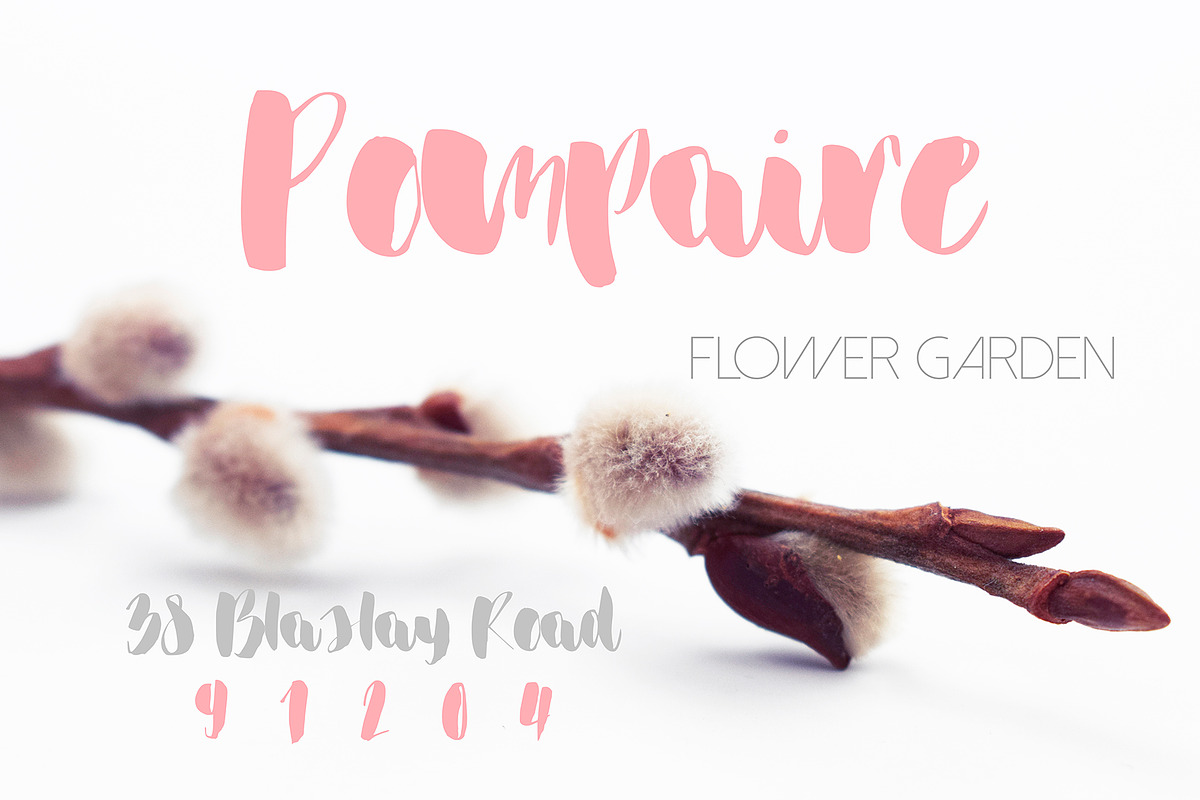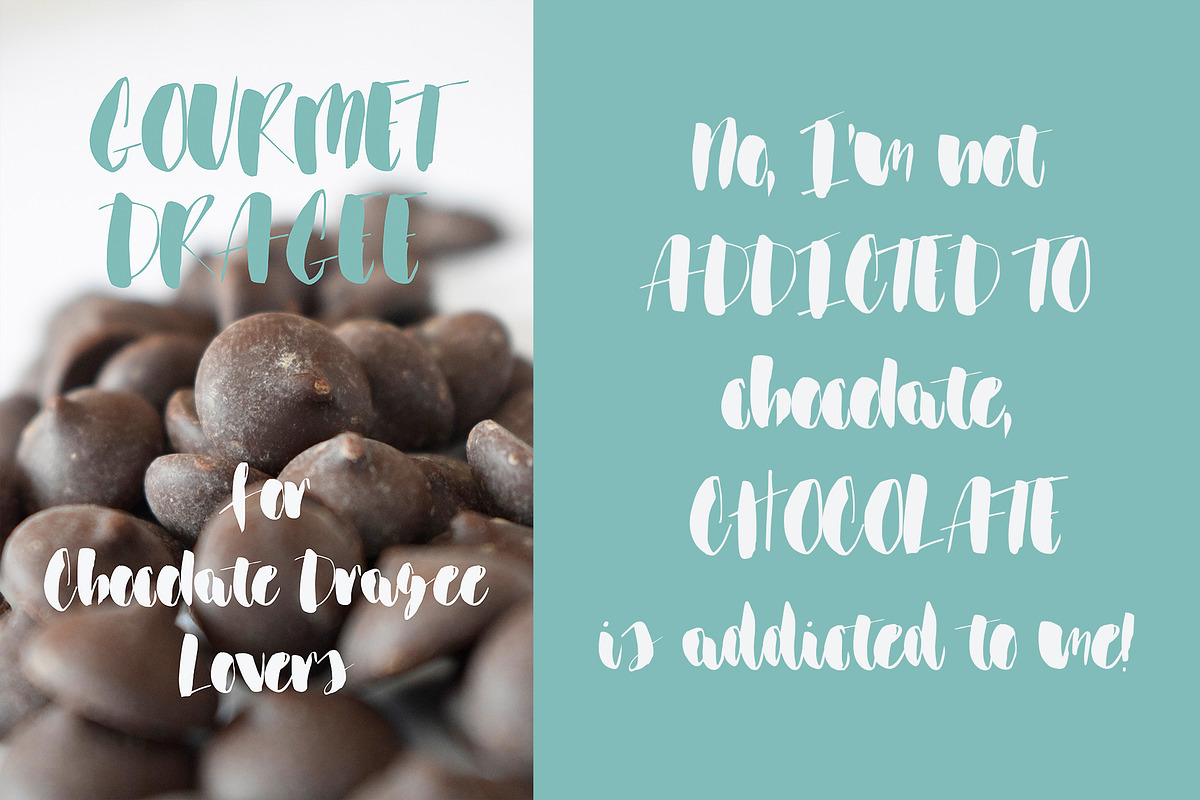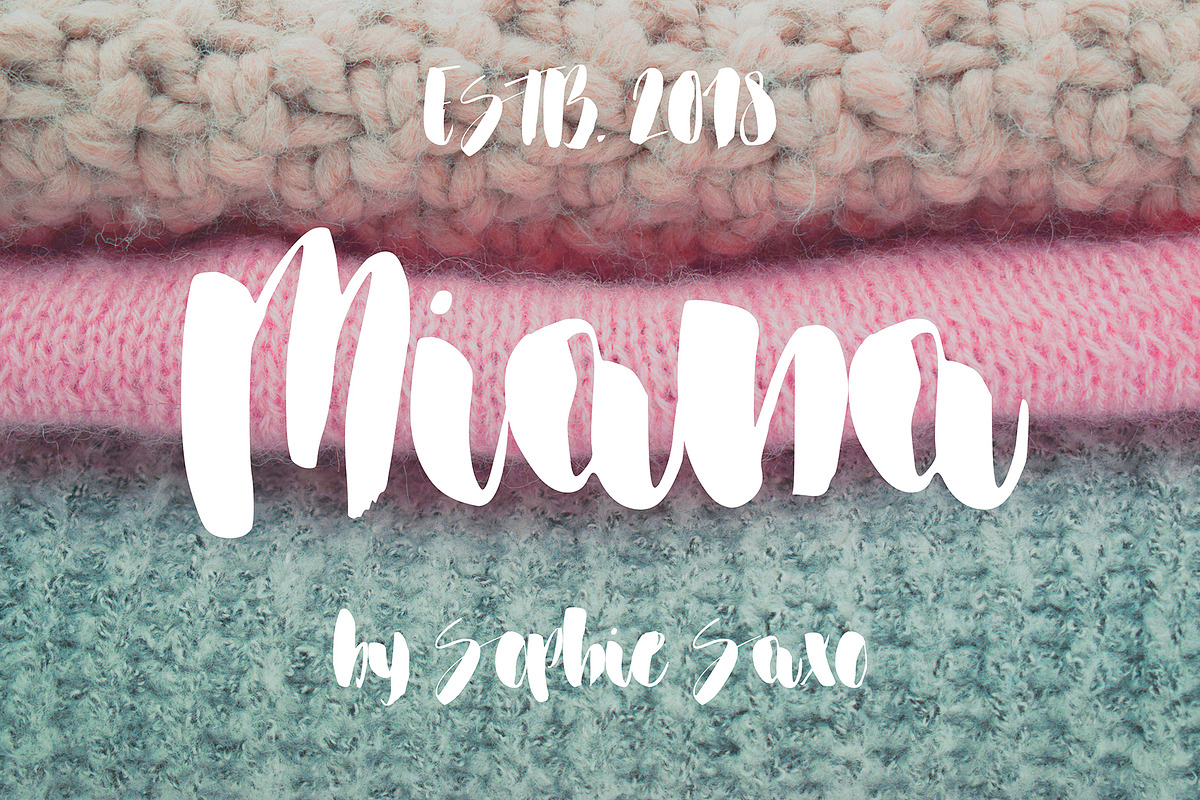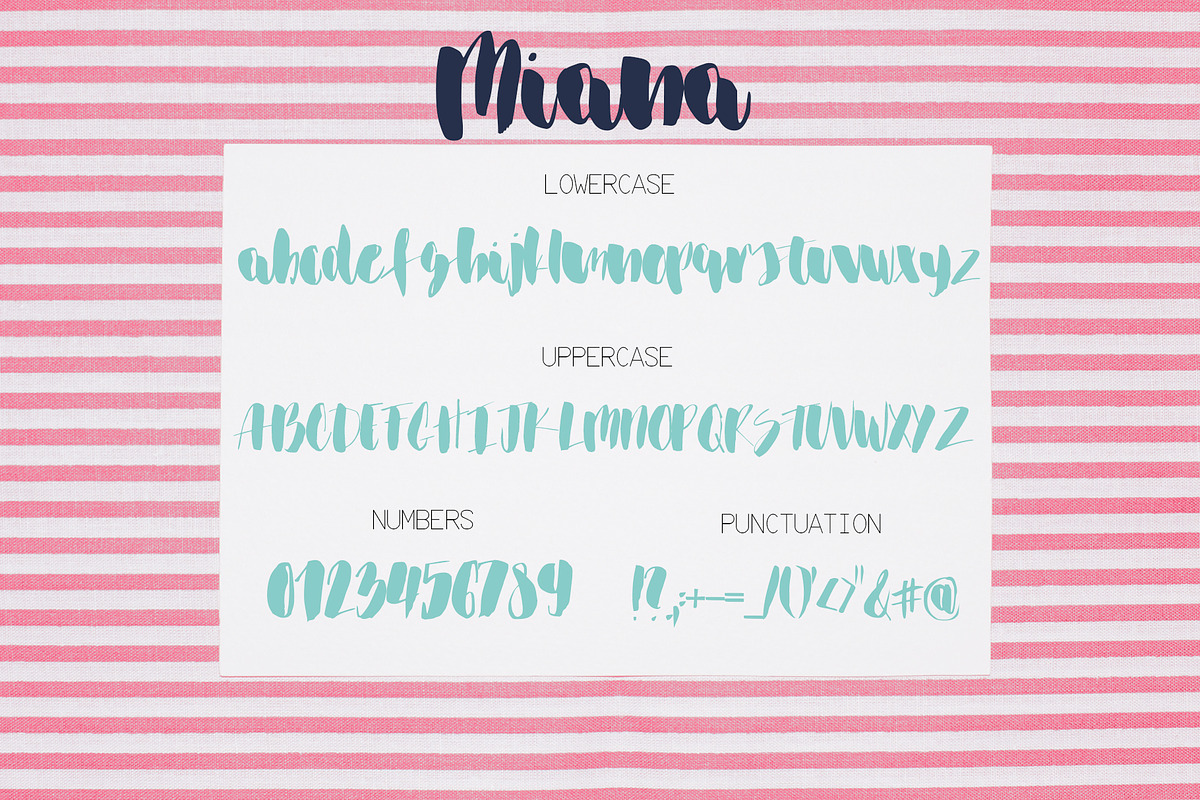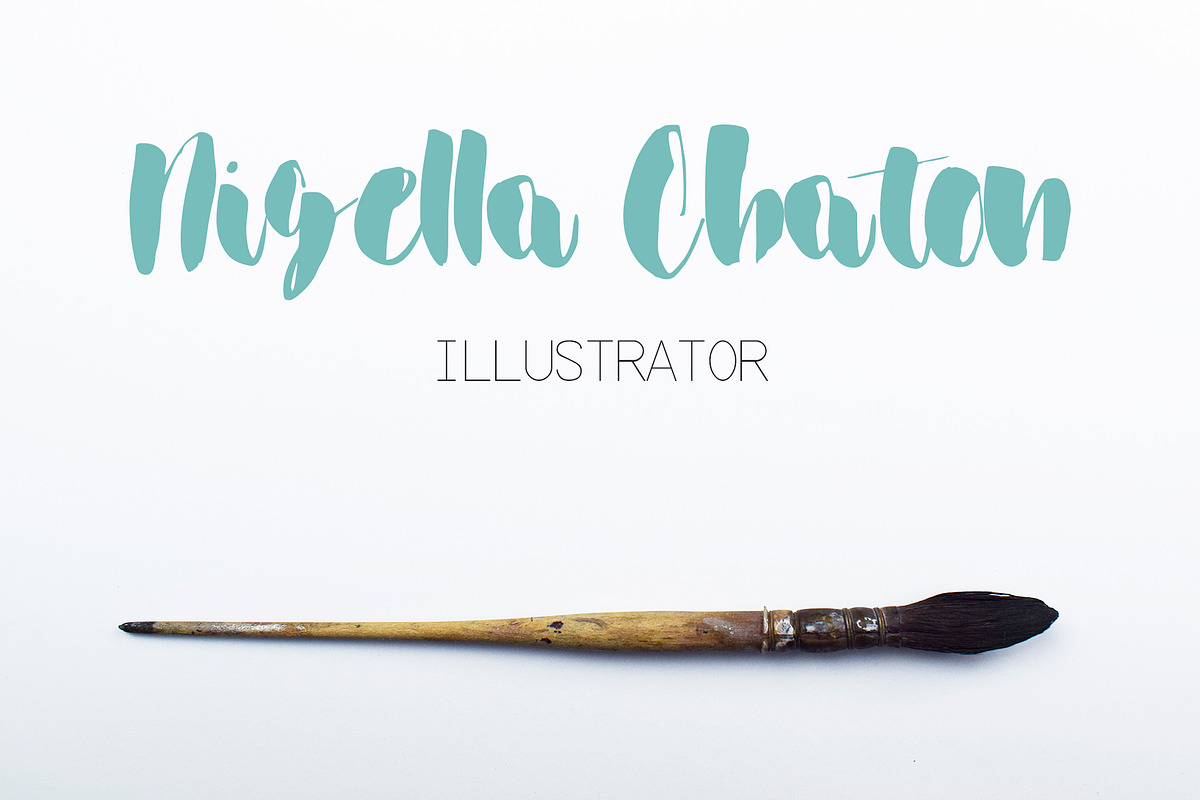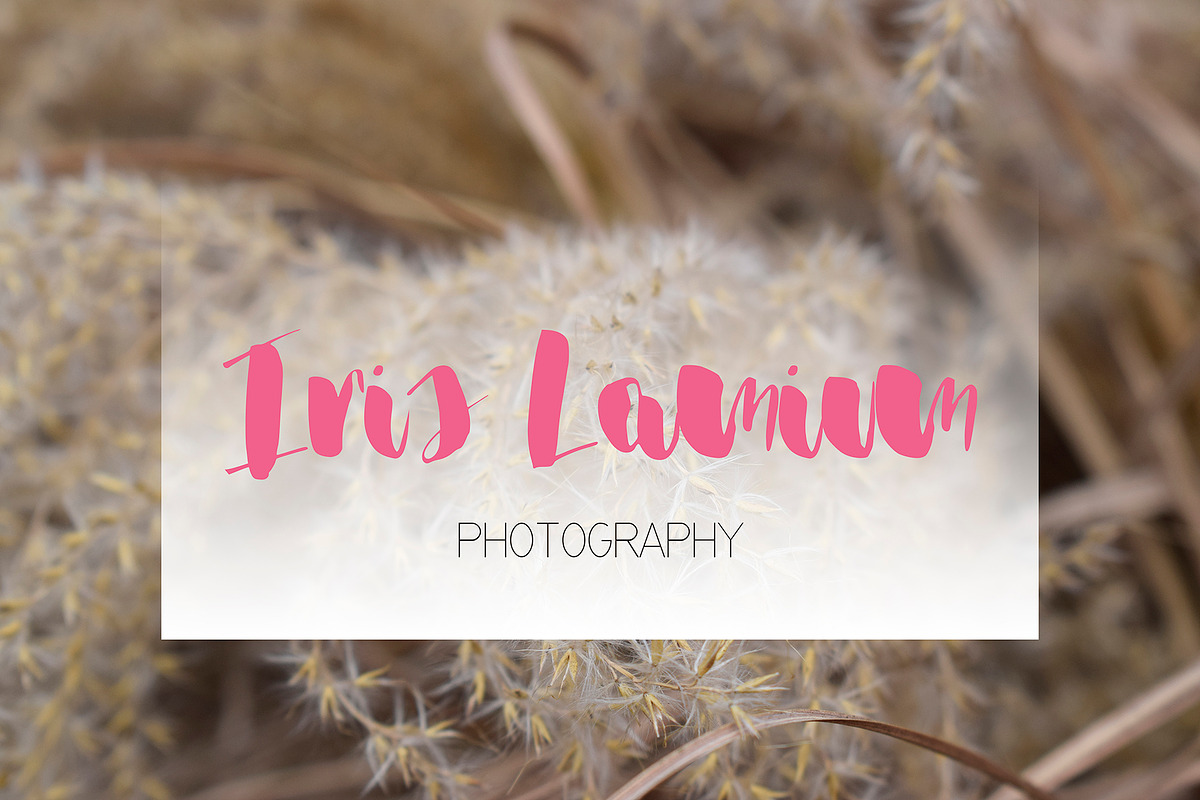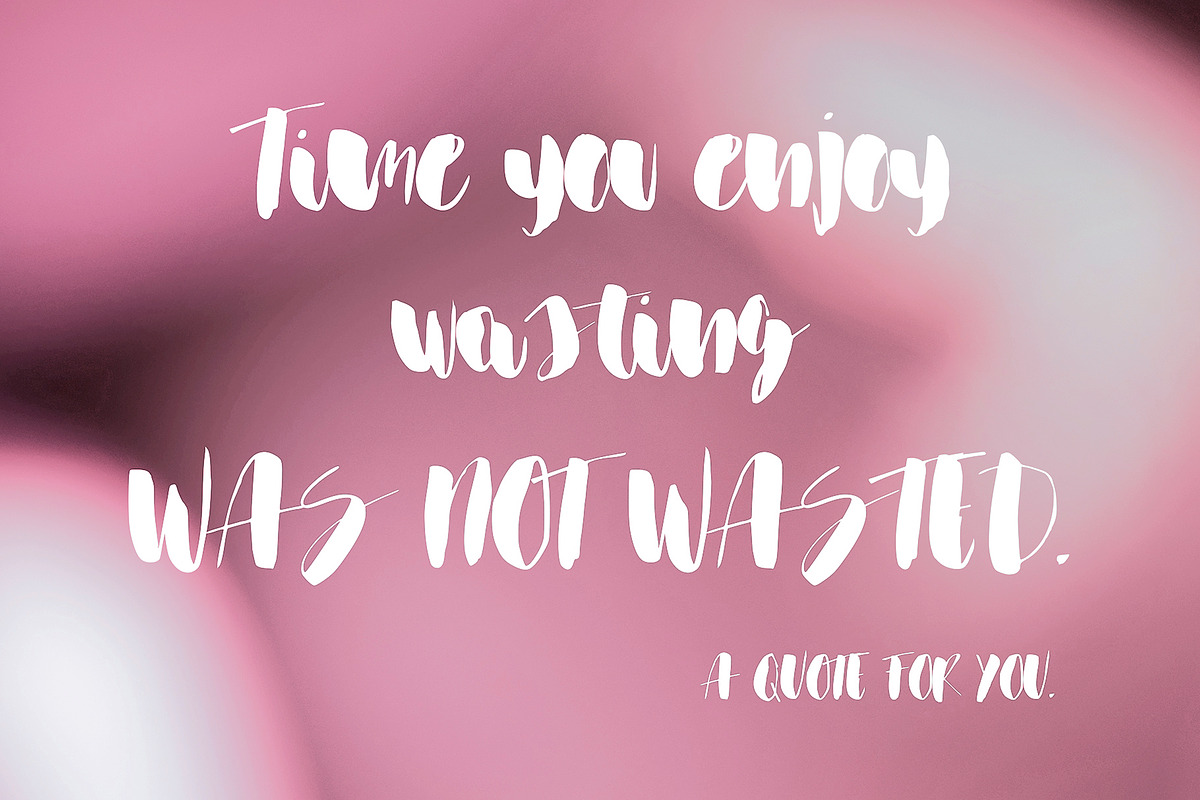
Miana Font
Introducing Miana, a cute girlish handwritten script font.💗 Perfect for any calligraphic and logo designs, baby shower and birthday invitations.
- Miana font contains upper & lowercase characters, full set of punctuation and numerals.